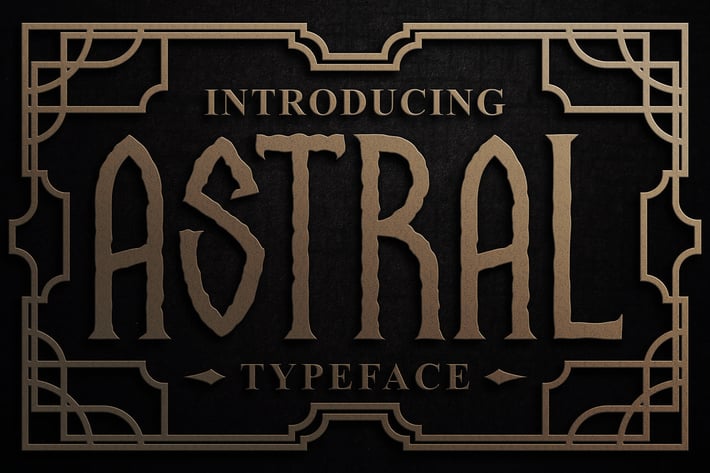
Astral display font
ASTRAL
Astral display font can be used in different purposes: logo and branding, sci-fi poster, product packaging, advertising, invitations, port apparel, game industry, movie, music and any typography design projects.